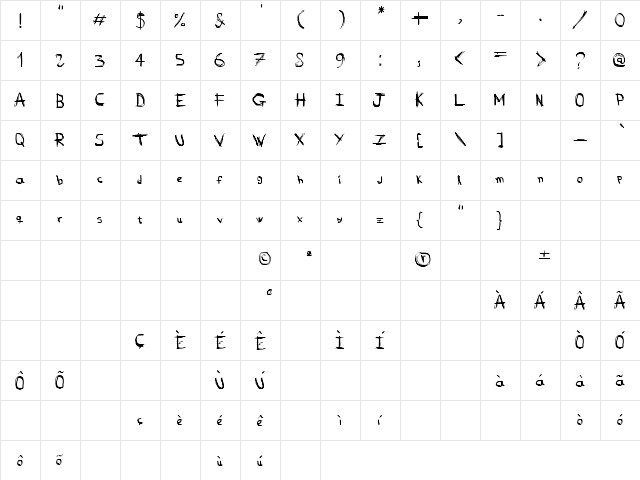
D_rough Normal
Design Context for D_rough Typeface
D_rough trades polish for personality, using distressed and eroded forms to bring grit and attitude to creative work.
A strong fit for alternative music projects, graffiti-adjacent design, and anything that deliberately resists polish.
Pro Tip: Use D_rough at larger sizes where the texture and irregularity of each letterform can be clearly seen — it loses its character at small sizes.